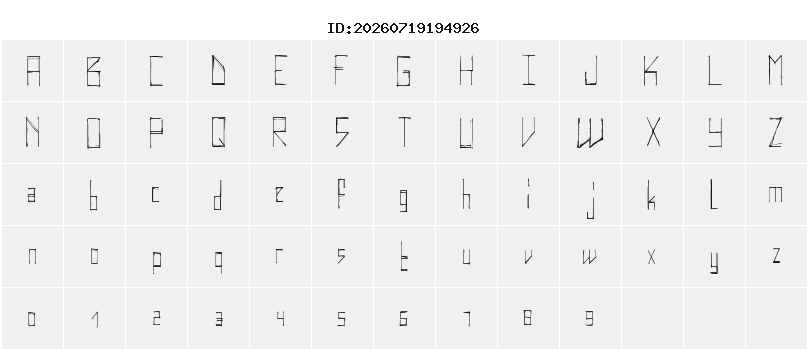
• Font Name: elektrodisiac
• Full Font Name: elektrodisiac
• Version: Version 1.00 May 17, 2005, initial release
• Designer: Andrea Pinchi
About elektrodisiac.ttf
elektrodisiac.ttf is a modern, elegant sans-serif font designed for ultimate readability and visual harmony. Perfect for branding, headlines, web design, and print materials.